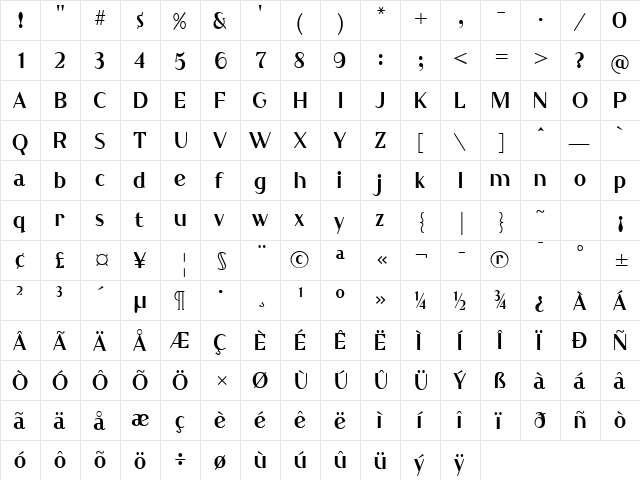
Qualettee Bold
Design Context for Qualettee Typeface
Qualettee offers clean, dependable letterforms without strong stylistic allegiance, making it a practical choice for designers who need flexibility. Its bold stroke weight gives it real presence on the page.